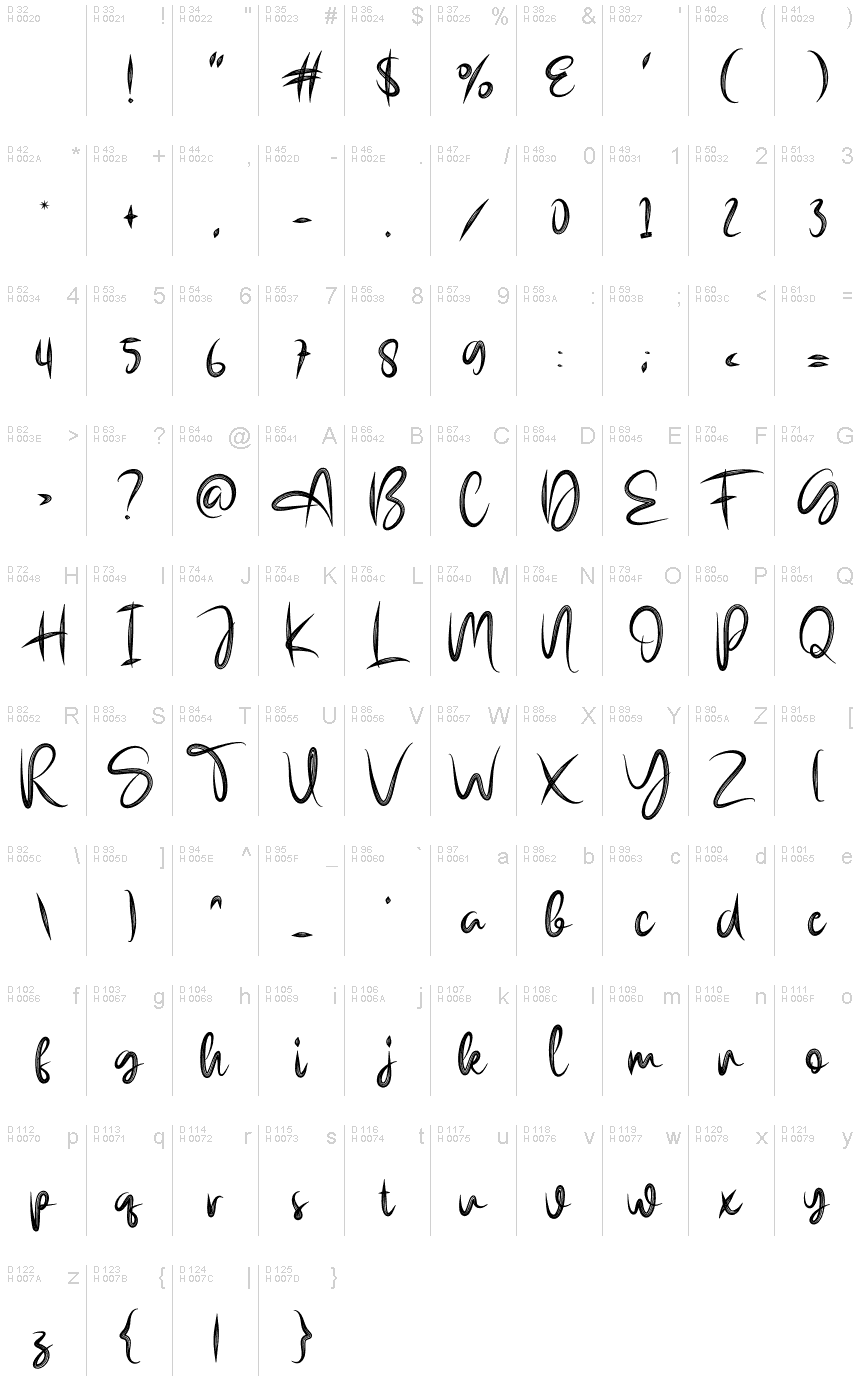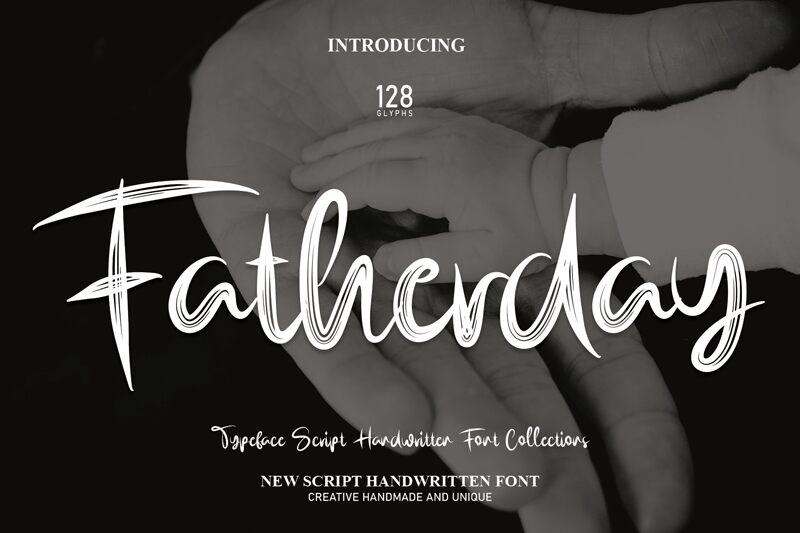
Fatherday
Fatherday, a captivating brush font designed by Scratchones, exudes a unique blend of elegance and playfulness. Its fluid strokes and dynamic curves create an authentic handcrafted feel, perfect for adding a touch of personality to any project.
Use this versatile font to bring warmth and charm to your wedding invitations or greeting cards. The semi-bold font weight lends itself beautifully to headlines or branding materials, while the wide width provides visual impact when used in posters or packaging designs.
Fatherday is the ideal choice for projects seeking a lively and expressive typeface that stands out from the crowd.
Use this versatile font to bring warmth and charm to your wedding invitations or greeting cards. The semi-bold font weight lends itself beautifully to headlines or branding materials, while the wide width provides visual impact when used in posters or packaging designs.
Fatherday is the ideal choice for projects seeking a lively and expressive typeface that stands out from the crowd.